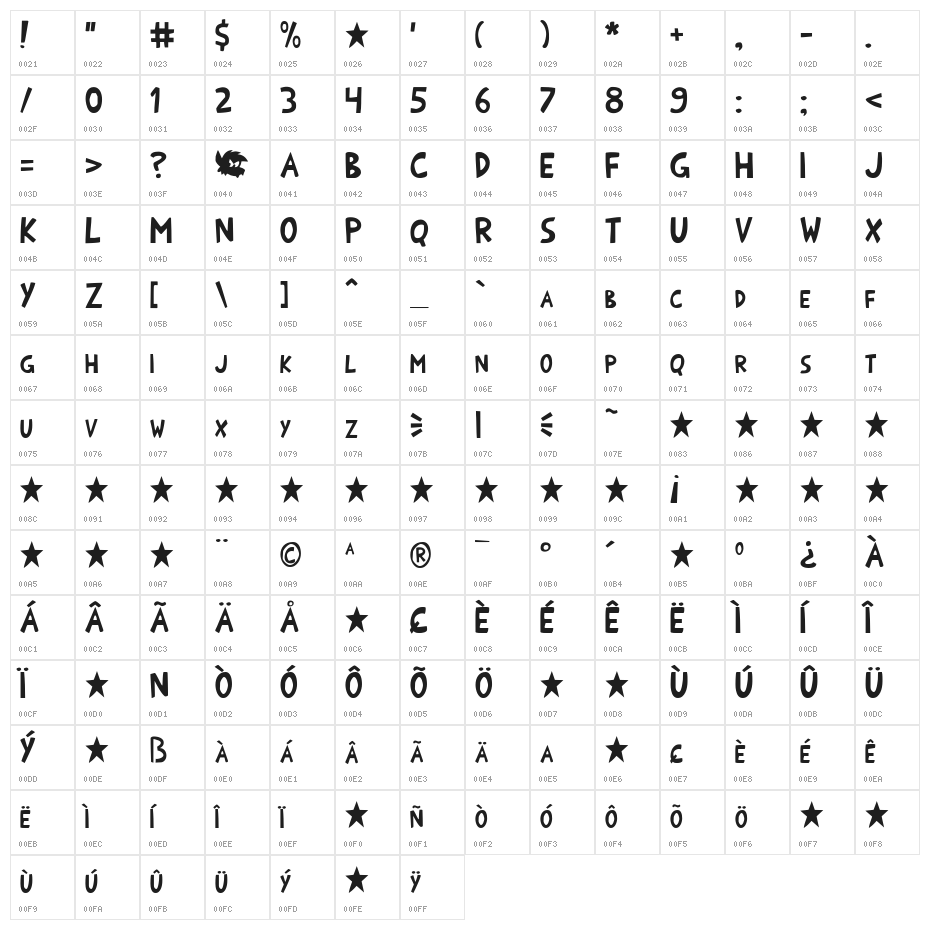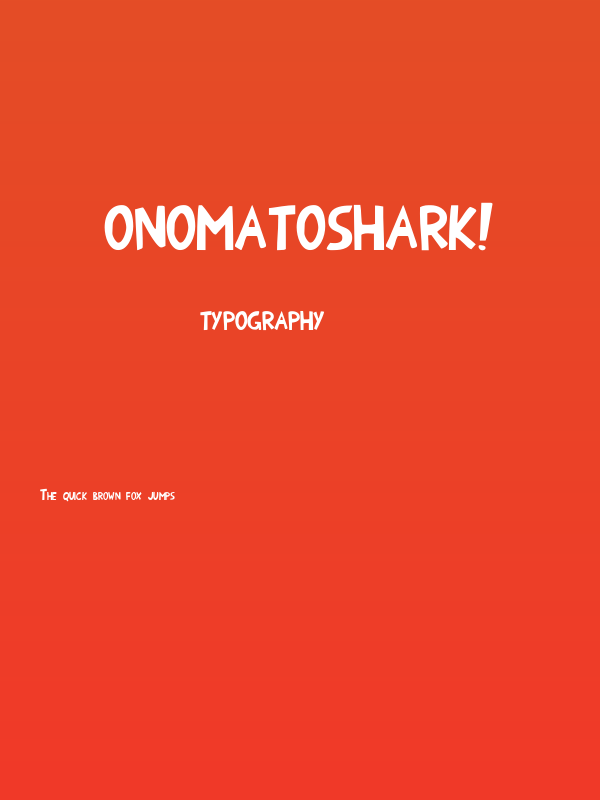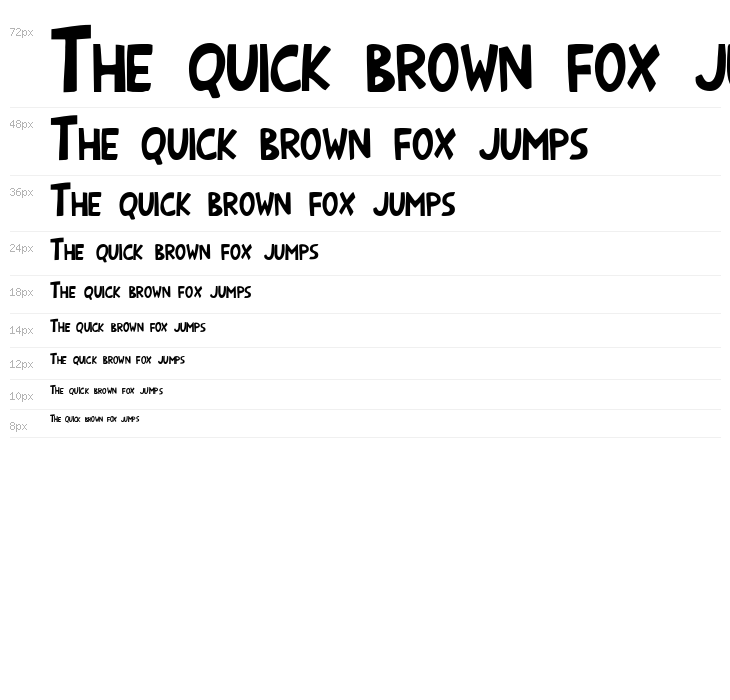
OnomatoShark! Font
OnomatoShark! Description
This font features a playful and bold style, characterized by its thick strokes and slightly irregular shapes, giving it a hand-drawn appearance. The uppercase and lowercase letters maintain a consistent weight, contributing to its bold presence. The numbers and special characters follow the same playful design, making it suitable for creative and informal projects. The overall look is dynamic and energetic, with a slightly cartoonish feel that adds a sense of fun and whimsy. The characters are well-spaced, ensuring readability while maintaining the font's unique style.
Overall StylePlayful, Cartoonish
Proposed ProjectsIdeal for comic books, children's books, playful branding, and creative posters.